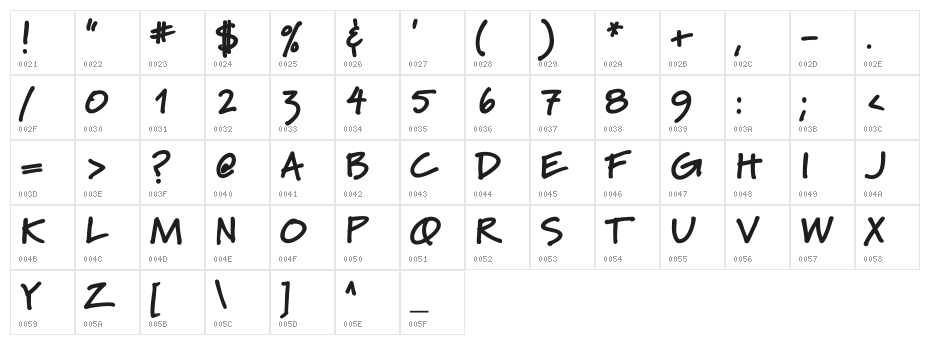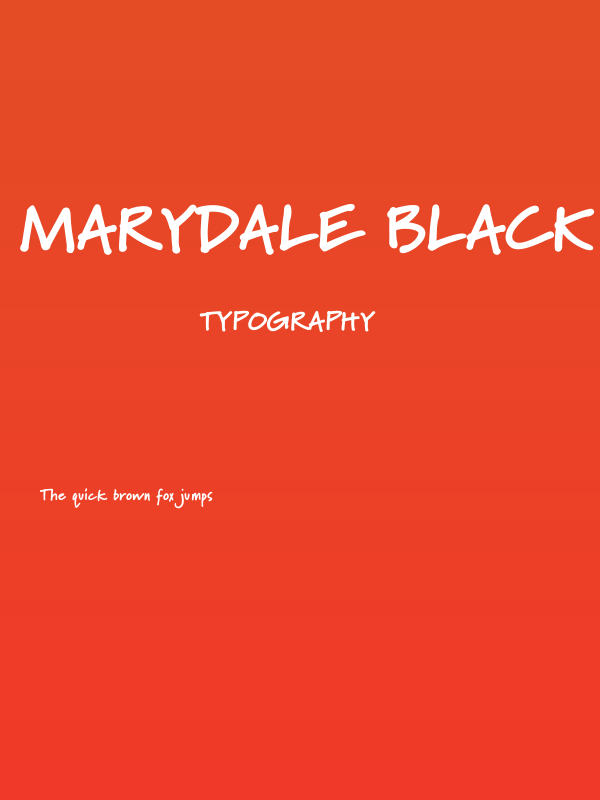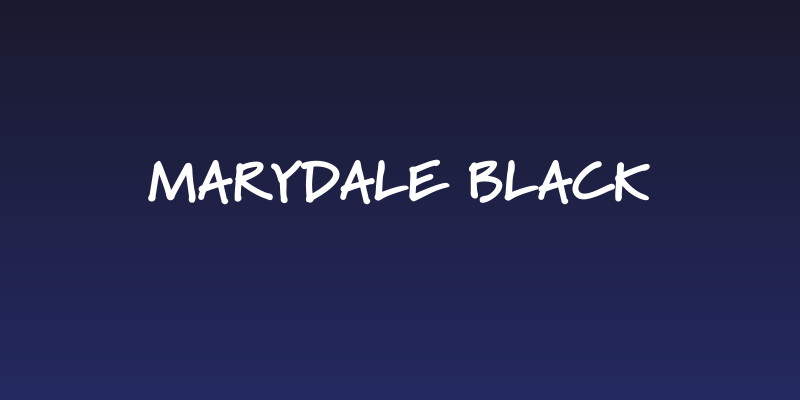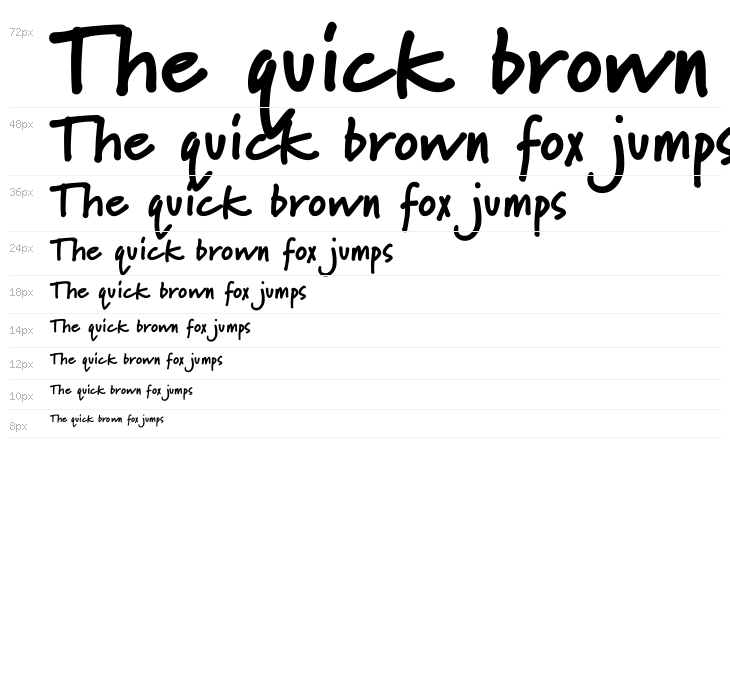
Marydale Black Font
Marydale Black Description
This font exudes a casual and friendly handwritten style, characterized by its smooth, flowing curves and slightly irregular letterforms. The uppercase letters maintain a consistent height, while the lowercase letters exhibit a playful bounce, adding to its informal charm. The numerals are clear and legible, matching the overall aesthetic. Special characters are well-integrated, ensuring versatility in various contexts. The font's bold weight gives it a strong presence, making it suitable for attention-grabbing headlines or personal, expressive projects. Its informal and approachable nature makes it ideal for creative designs that require a personal touch.
| Proposed Projects | Ideal for greeting cards, personal branding, social media graphics, and informal invitations. |